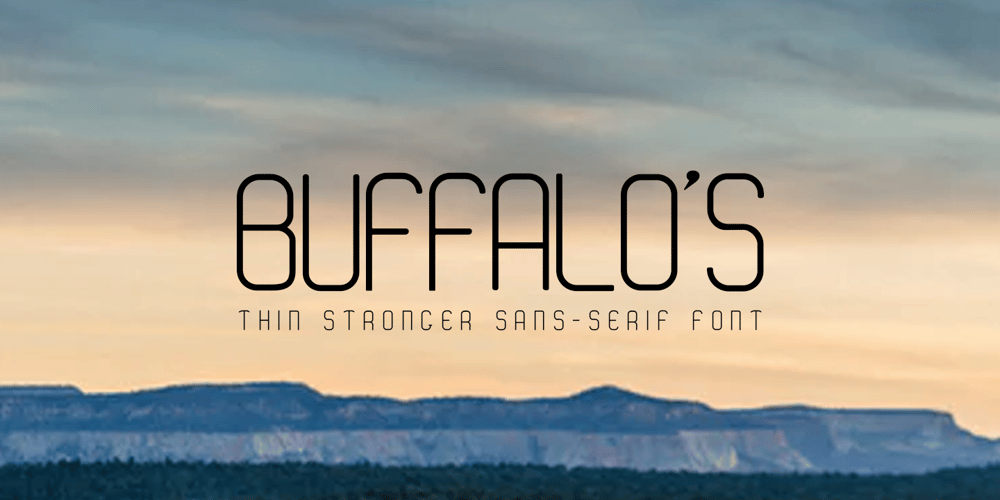
Buffalos
Buffalos font
Buffalos Font Family was designed by Wahyu Edhi Widodo and published by Gatra Std. Buffalos contains 1 styles and family package options. Introducing a cute handwriting “BUFFALO’S” Thin Stronger Sans-Serif Font!If you are needing a touch of casual modern San-Serif for your designs, this font was created for you!What’s Included: Uppercase and Lowercase Number and Punctuation Support Language This font works best in a program that supports OpenType features such as Adobe Indesign, Adobe Illustrator CC and CS, or Adobe Photoshop CC and CS also CorelDrawMore Questions? Here are some (potential) answers! Do not to resell this font in any way. Multilingual Support is included for Western European Languages Have a Wonderful Day,Gatra Std